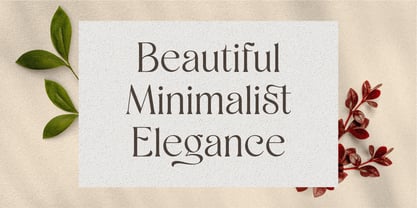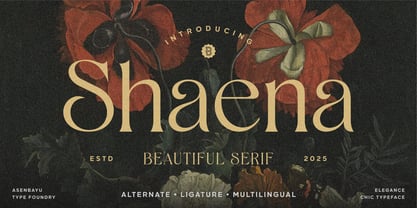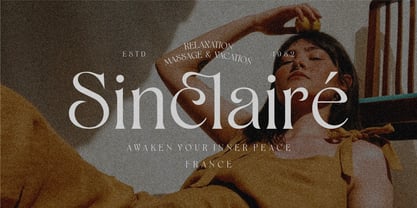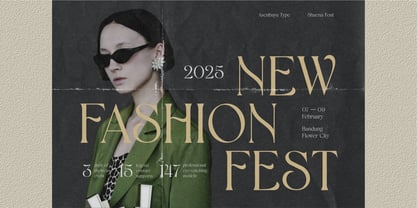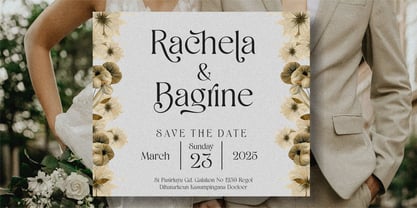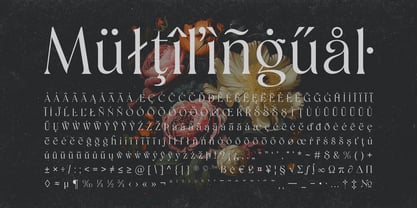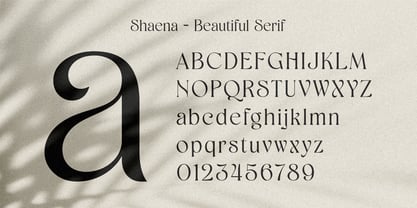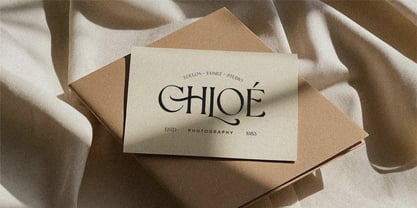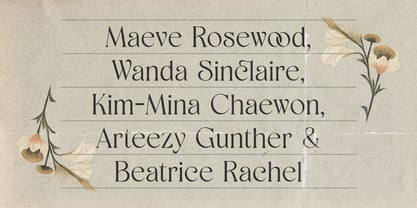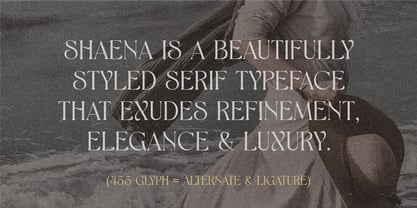
Shaena
by Asenbayu
The Shaena Font Family was designed by Bayu Noor Witarsa and published by Asenbayu. Shaena contains 1 styles.
Shaena is a beautifully styled serif typeface that exudes refinement, elegance and luxury. This font exhibits organic curves that blend seamlessly into sharp serifs. This font is suitable for unique desired logos and branding, fashion designs, wedding, poster designs and many more.
Shaena font features: Standard glyph, stylistic alternates, stylistic ligatures, symbol, punctuation and multiple languages supported.
Designers: Bayu Noor Witarsa
Publisher: Asenbayu
Foundry: Asenbayu